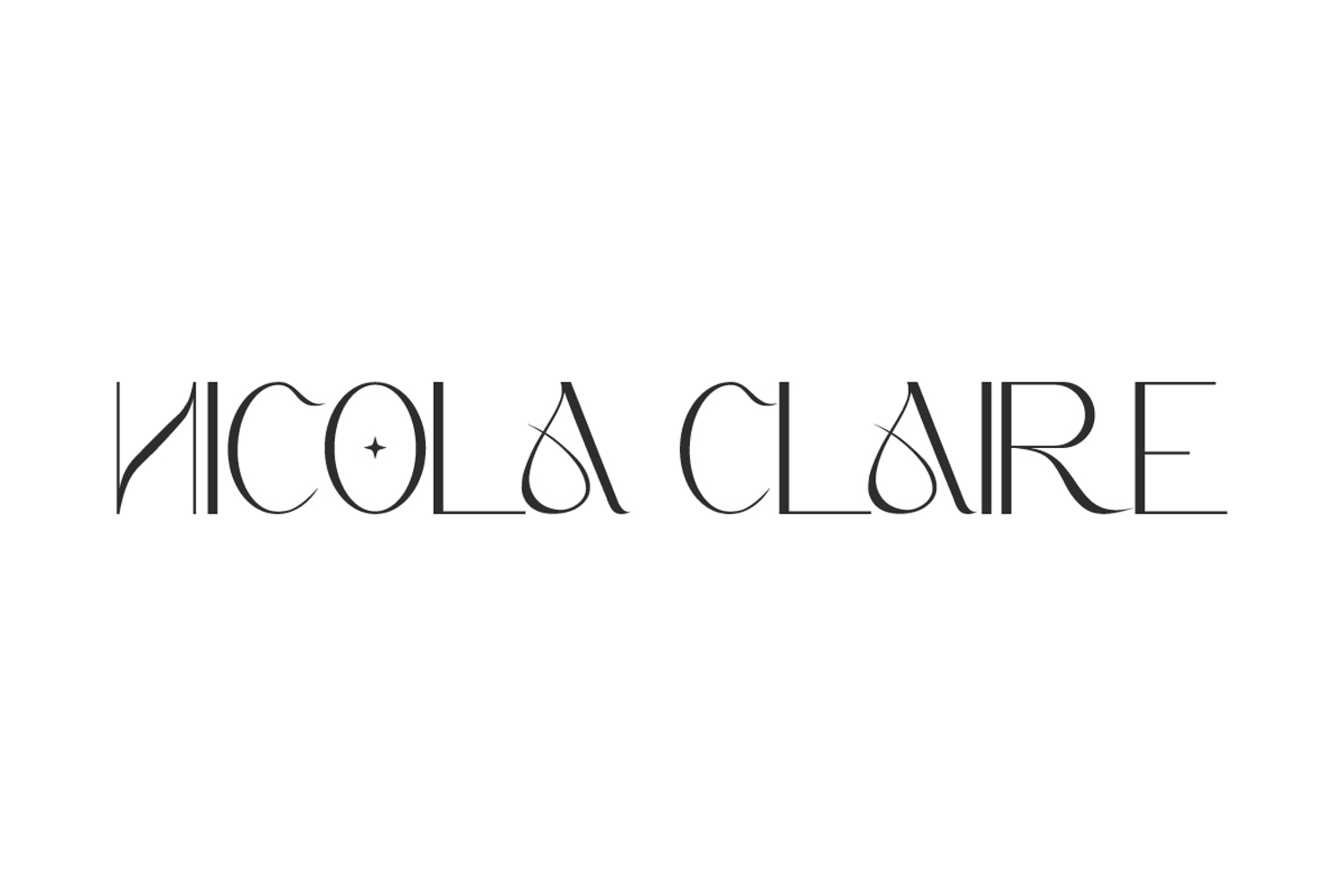
Nicola Claire Font
Nicola Claire Font is Sans Serif an elegant luxurious typeface that is timelessly beautiful with a modern and stylish touch. This typeface is light and contemporary, seamlessly blending graceful curves with flexibility. Created for branding logo, greeting cards, illustrations, labels, packaging design, poster, screen print, signage, websites, and some other works.
Nicola Claire Font contains complete basic characters of Uppercase and Lowercase Letters, Numbers, Symbols, and Punctuation. It gives you experimental possibilities in amazing typography that works well in a variety of letters and other characters. The look of this font will catch the eye for use in businesses such as accessories and watches, content creator, fashion, florist, graphic design, jewelry, perfume brand, salons, and more.